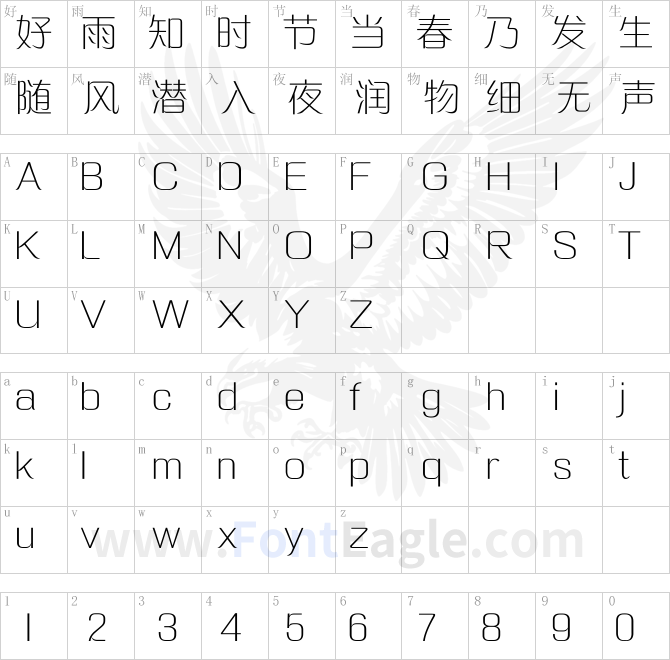
- Font name:方正细倩简体
FZXiQian-M15S is a great font, widely used in graphic design, single-page menu design, poster design and other fields, and is deeply loved by designers.FZXiQian-M15S download.